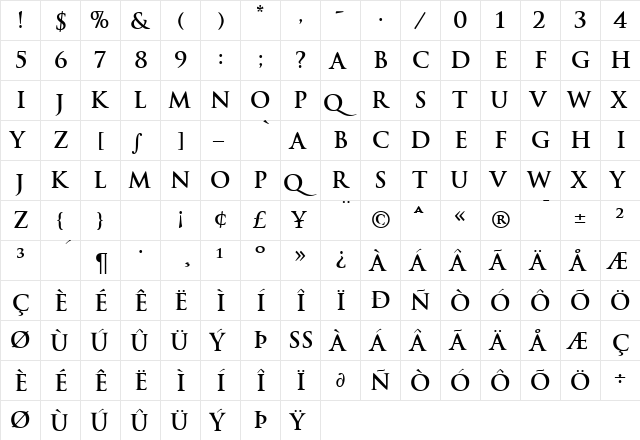
Tradition DB Bold
Design Context for Tradition DB Typeface
Tradition DB offers clean, dependable letterforms without strong stylistic allegiance, making it a practical choice for designers who need flexibility. Its bold stroke weight gives it real presence on the page.